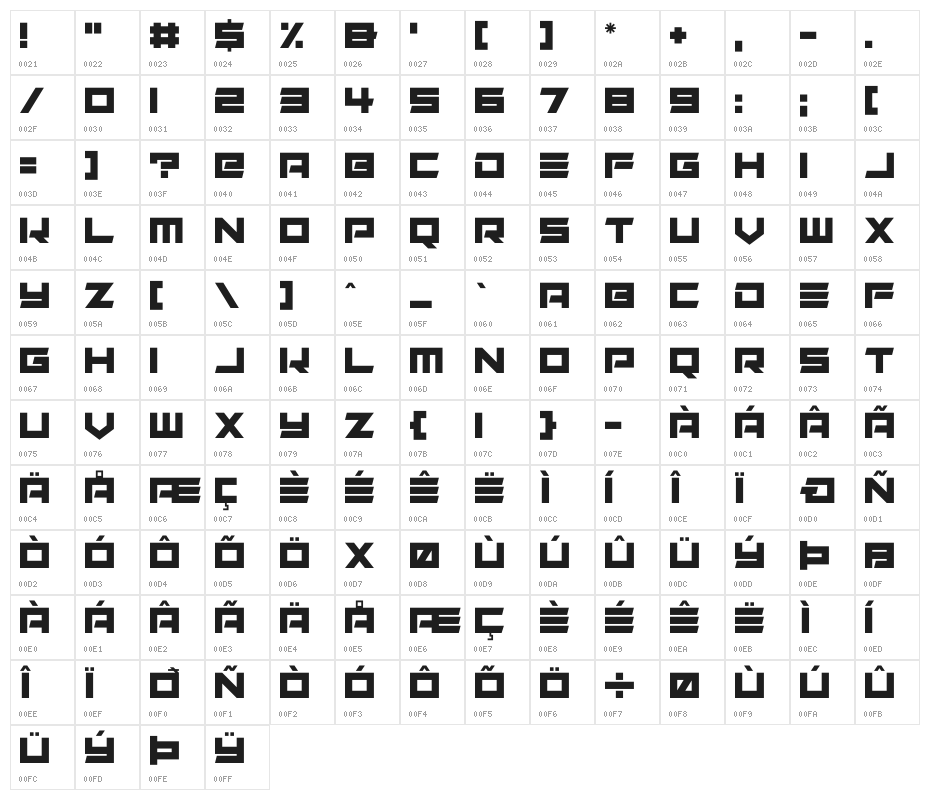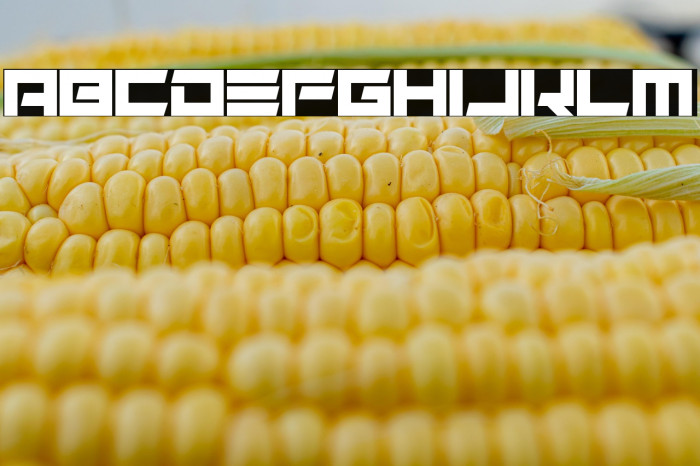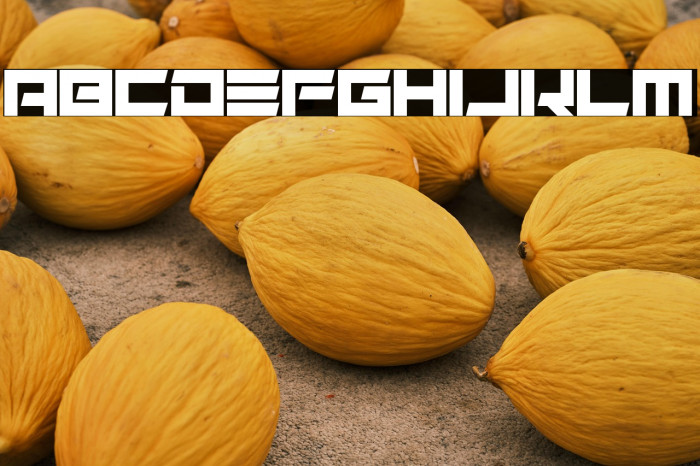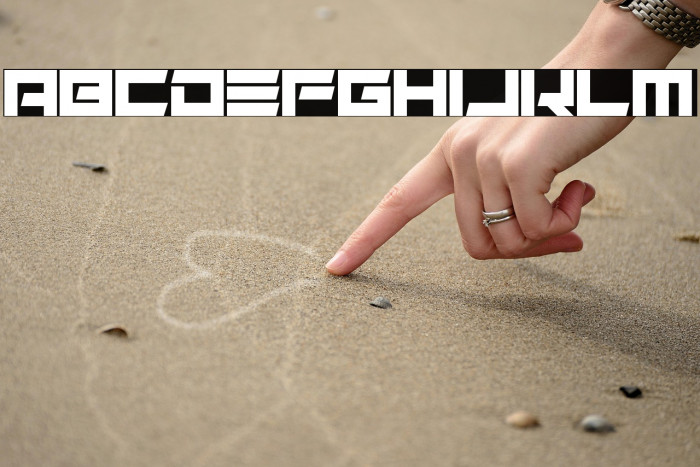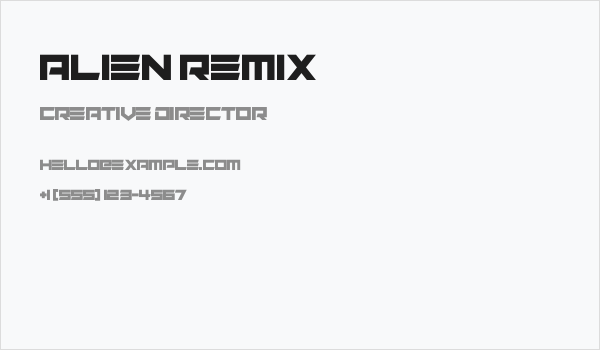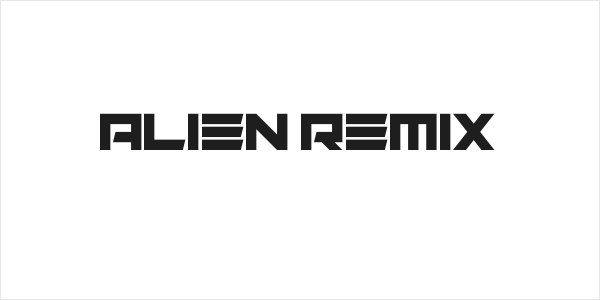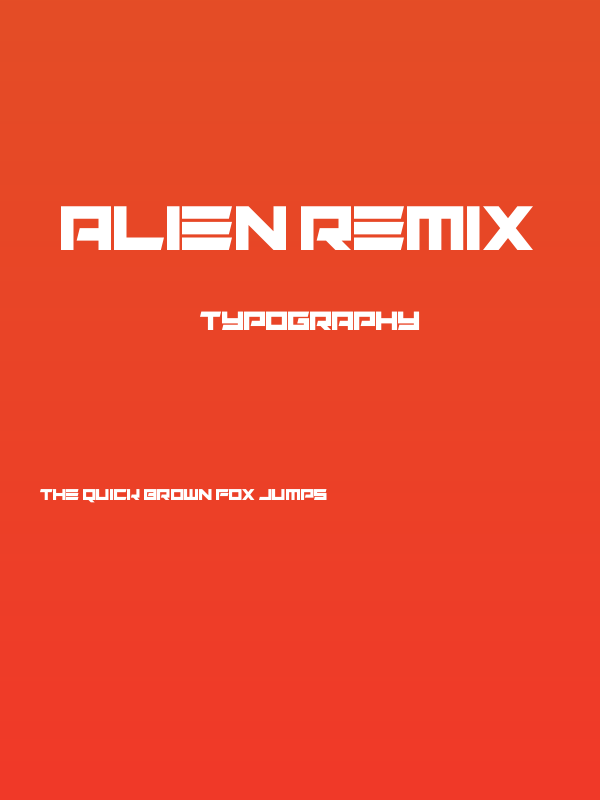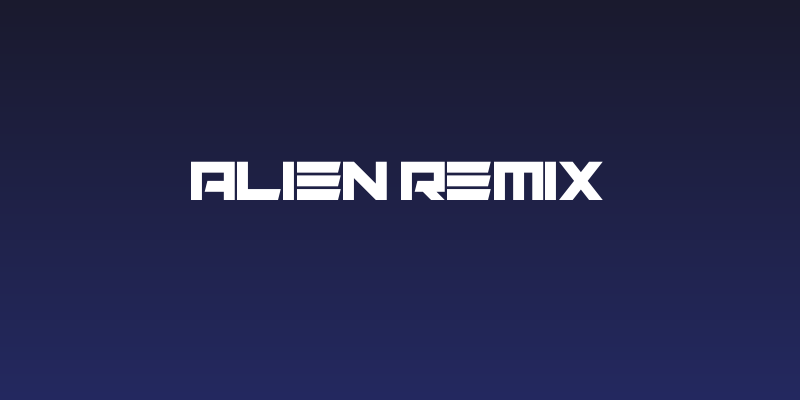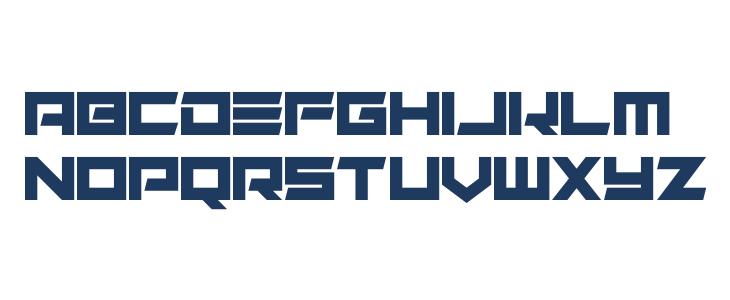
Alien Remix Font
Alien Remix Description
This font features a bold, futuristic design with sharp angles and geometric shapes. The characters are blocky and wide, giving a strong and impactful appearance. The uppercase and lowercase letters maintain a consistent style, with unique cuts and edges that add a sense of movement and modernity. The numbers and special characters are designed to match the overall aesthetic, making the font suitable for digital and sci-fi themed projects. Its distinct style makes it stand out, ideal for creating a bold statement.
| Proposed Projects | Ideal for sci-fi movie posters, video game titles, tech branding, and futuristic event flyers. |